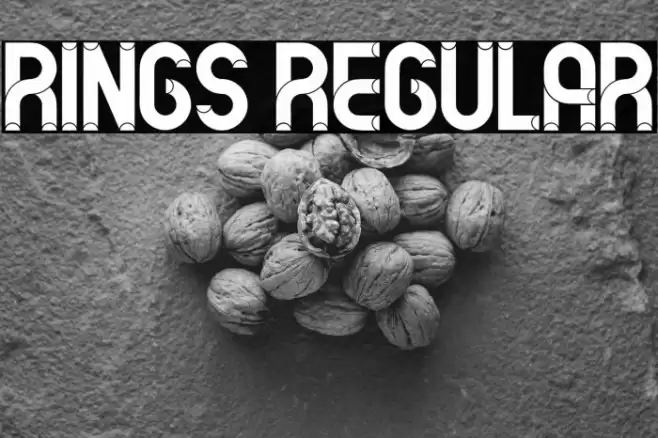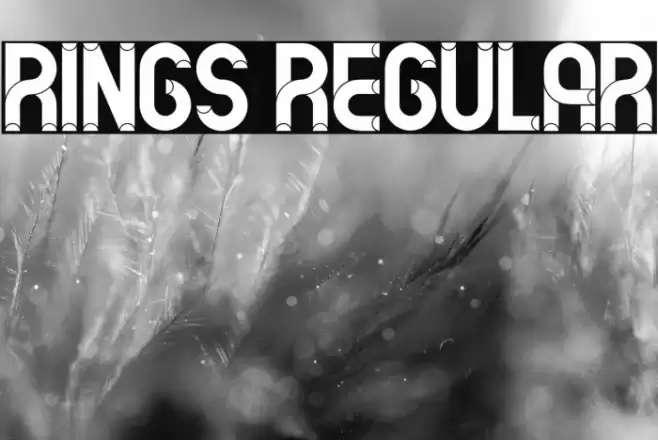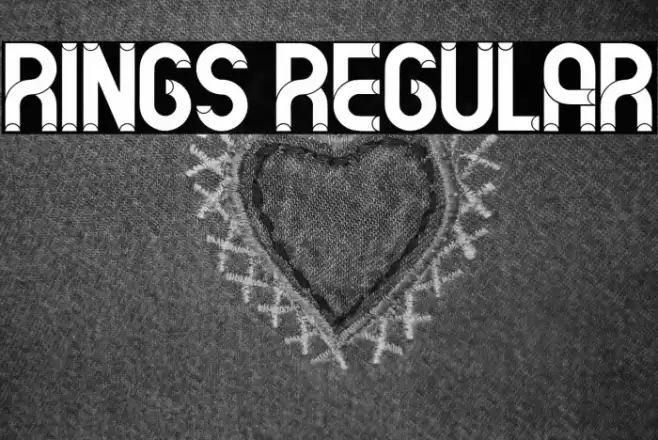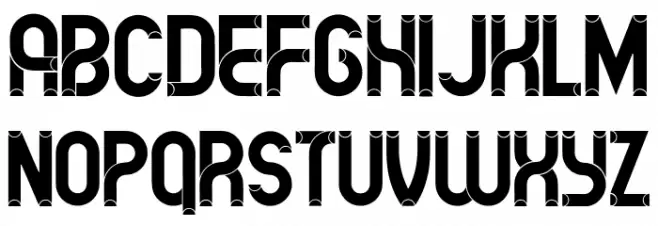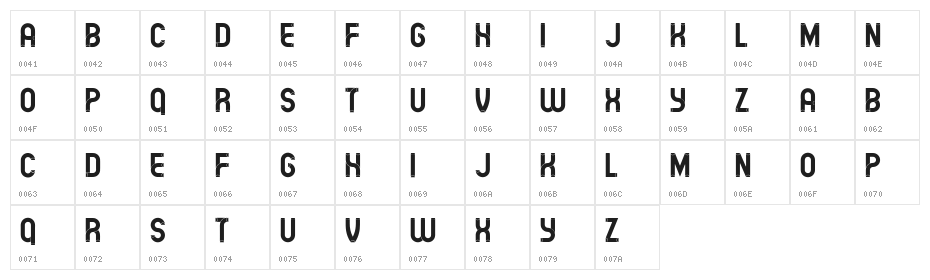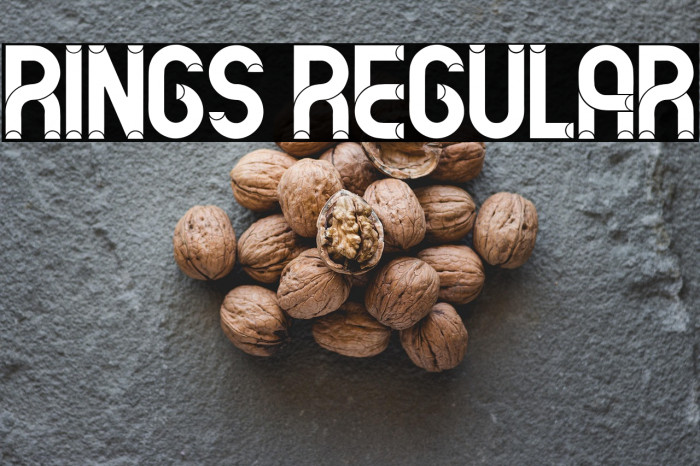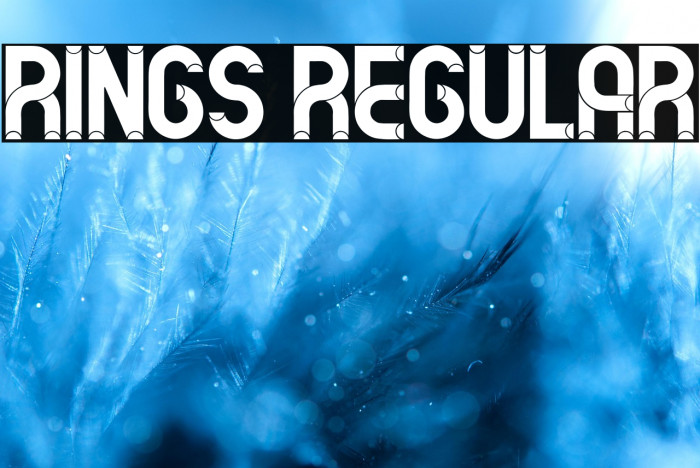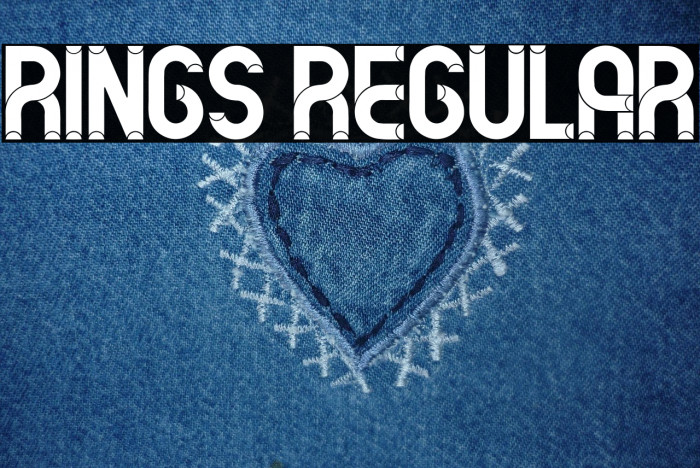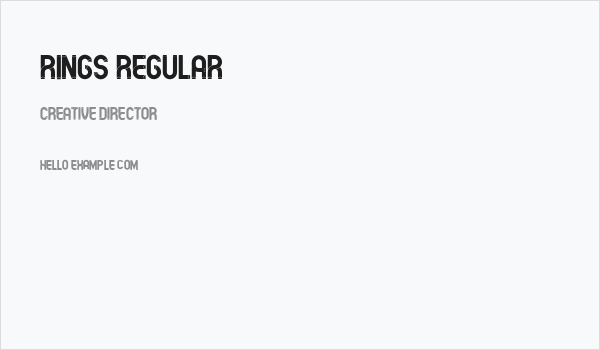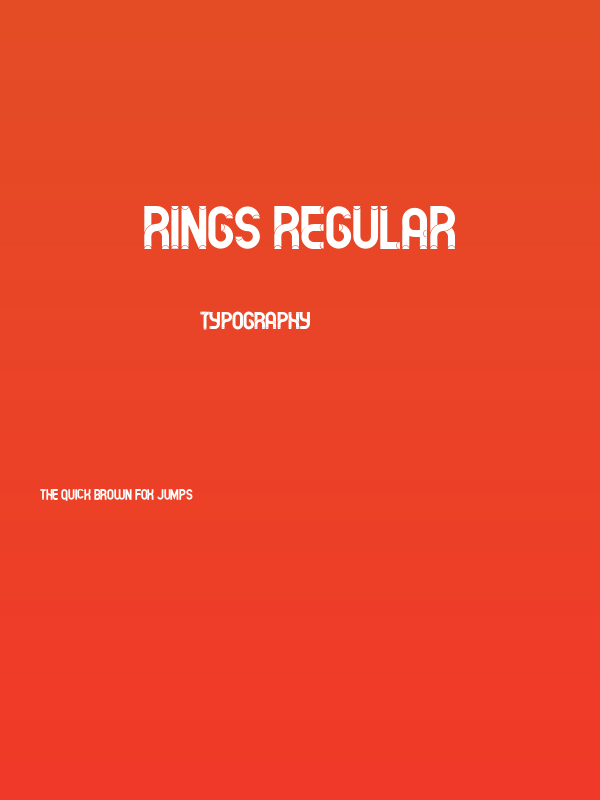
Rings Regular Font
Rings Regular Description
This font features a bold and striking design with a unique geometric style. Each character is constructed with thick, uniform strokes and incorporates circular elements that create a sense of movement and modernity. The uppercase letters are particularly eye-catching, with their bold lines and distinctive curves. The overall appearance is both futuristic and artistic, making it suitable for creative and innovative projects. The font's design is consistent across all characters, providing a cohesive and harmonious look.
A bold, geometric font with circular elements and a modern aesthetic from Uncategorized fonts.